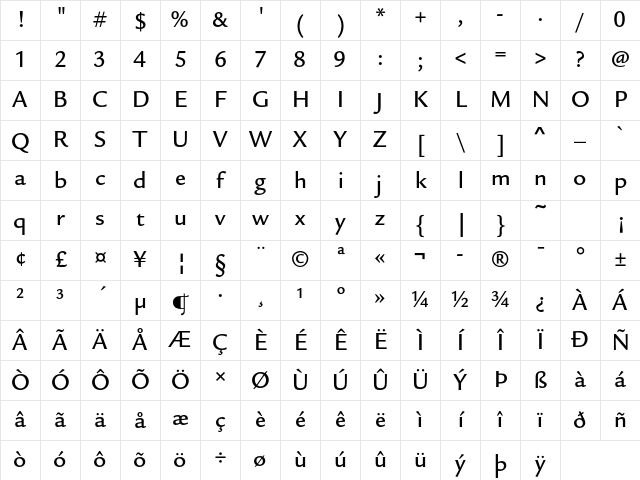
ITC Legacy Sans Std Medium
Designer: Ronald Arnholm
Complete ITC Legacy Sans Std Medium glyph index. Displaying only characters natively supported by ITC Legacy Sans Std Medium font.
Design Context for ITC Legacy Sans Std
ITC Legacy Sans Std is a composed and adaptable typeface that performs quietly and consistently across a wide range of design contexts.